Minnesota by Design
The Nerf Ball. Masking tape. The Hüsker Dü logo. Cheerios and Wheaties. This is Minnesota design and we haven’t even mentioned the architecture. Or the chairs. Or the rollerblades (don’t roll your eyes). Or the magnetic poetry (don’t roll your eyes!).
Walker Art Center launched a web-based initiative called Minnesota by Design and as you can see, we can’t pick a favorite. That’s why it’s such an honor to have Klavika included in the collection. Eric, who designed Klavika in 2004, was born in Minnesota and we’re proud to uphold the culture that has been here long before us.
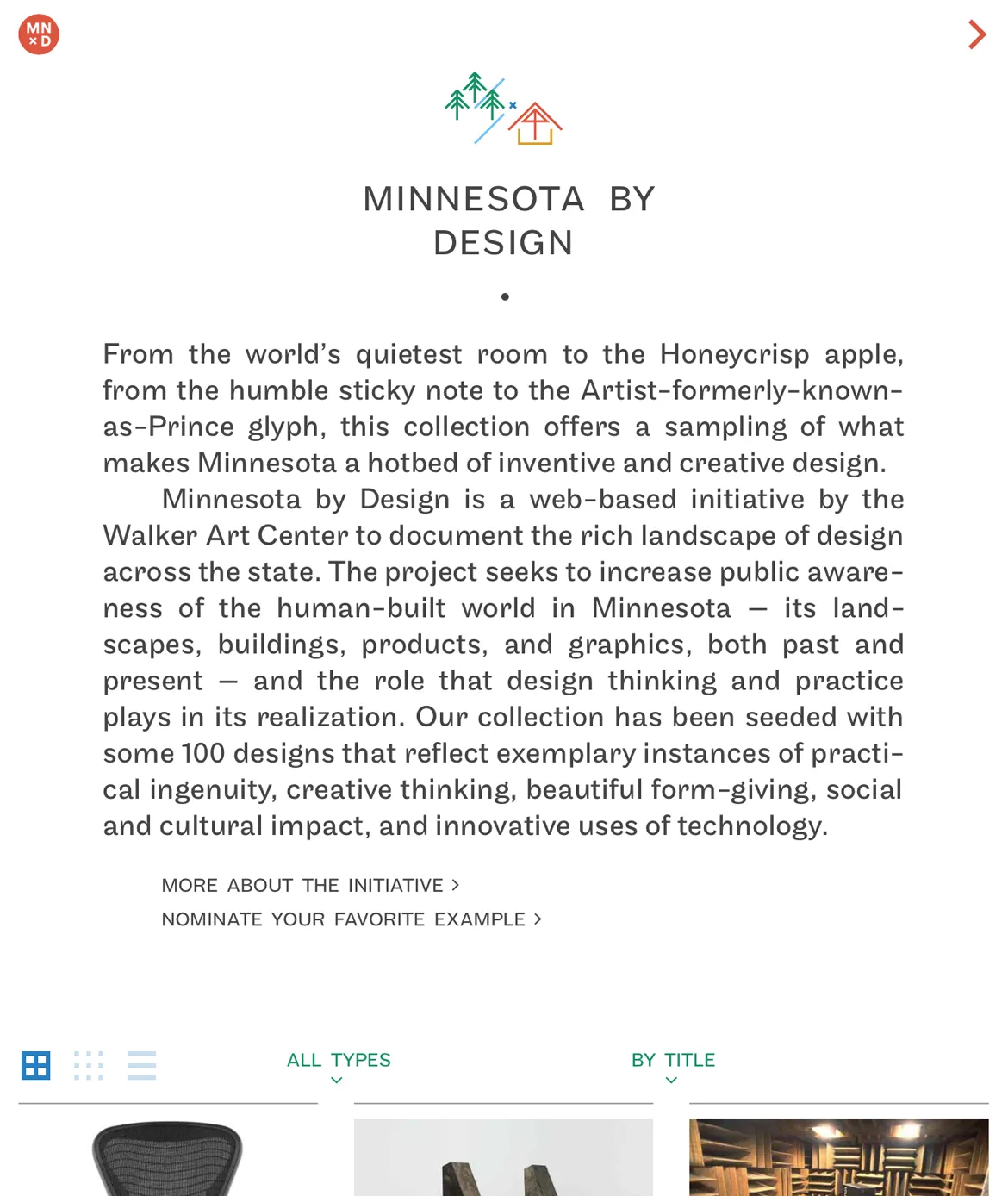
The virtual gallery allows the Walker to include works that can’t be practically collected – like a park. It also means webfonts. We were excited to see Maple chosen as the typeface for the project, used for everything from navigation to descriptions and even the map that represents the origins of the designs.
So if you’re interested in some design history – much of this work extends far beyond Minnesota – take a look yourself but beware the rabbit hole. Soon you’ll know plenty about the Honeycrisp apple. Tonka Toys. Paul Bunyan. Marcel Breuer…